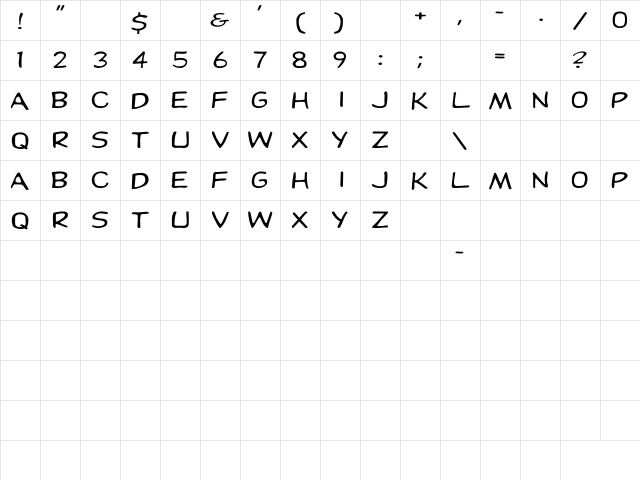
Dupuy Ex Regular
Design Context for Dupuy Ex Typeface
Dupuy Ex is a composed and adaptable typeface that performs quietly and consistently across a wide range of design contexts.